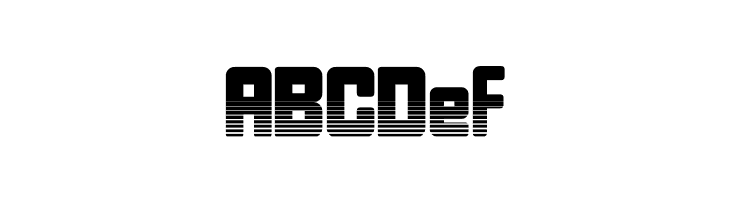
Nonsense Filled Regular Font
- Font: Nonsense Filled Regular
A modern, geometric font with rounded edges and consistent stroke width.
( Fonts by Daniel Gauthier )